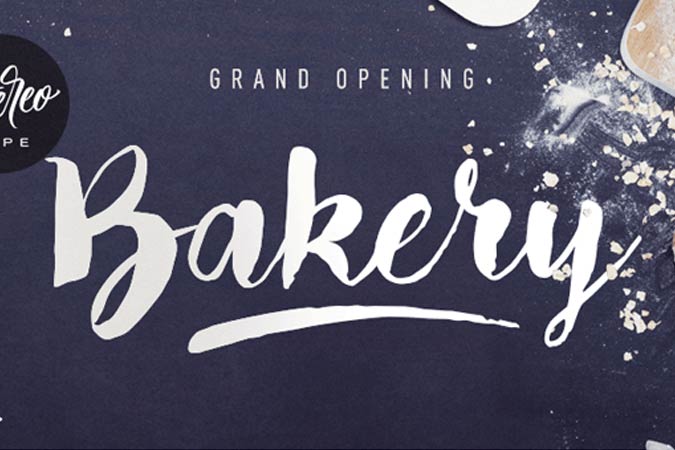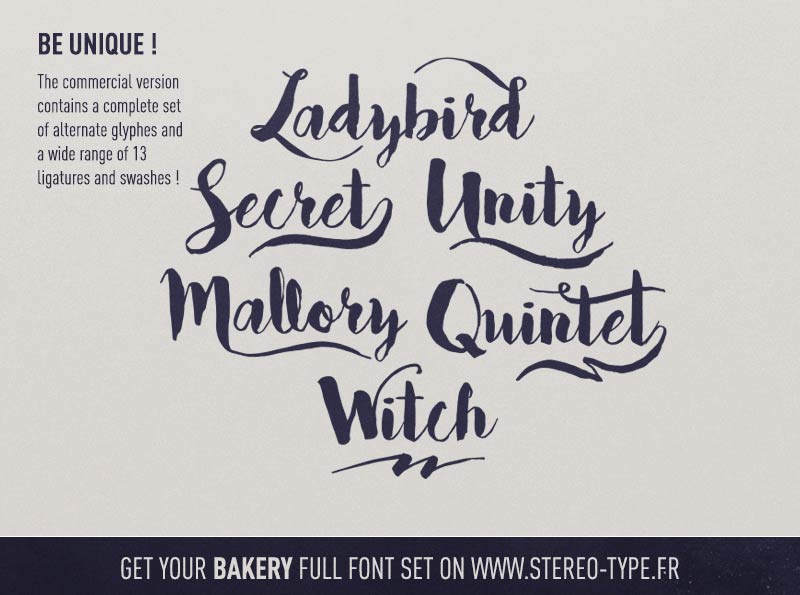
Bakery is a brush script font made with a brush pen. With the booming of handlettering font faces springing up everywhere, this font is free but restricted to personal use only. You can buy the full commercial version which comes with complete sets of glyphs. This font is perfect for menu design for hipster cafes.
- Designer: StereoType